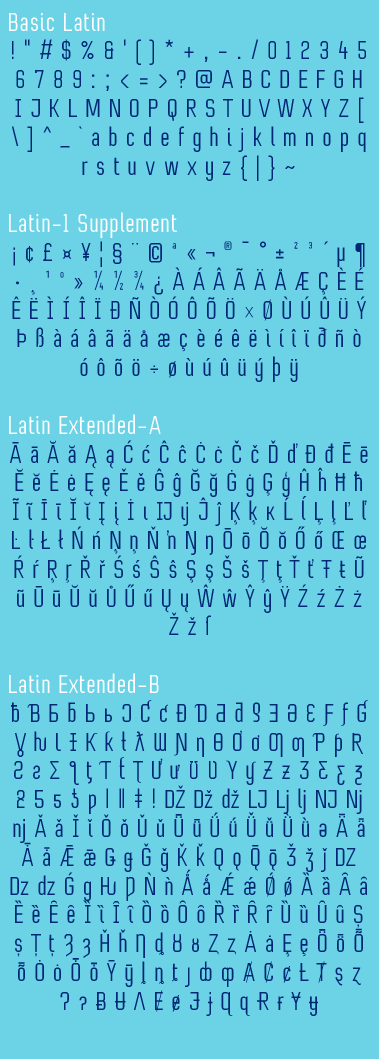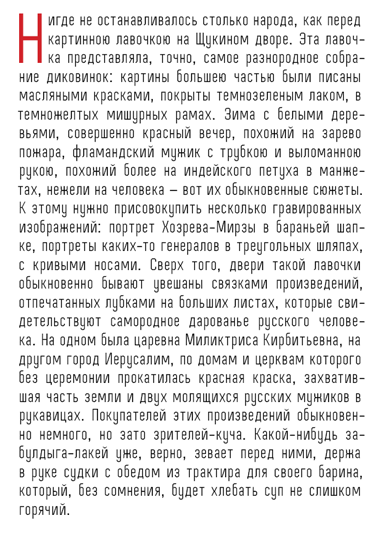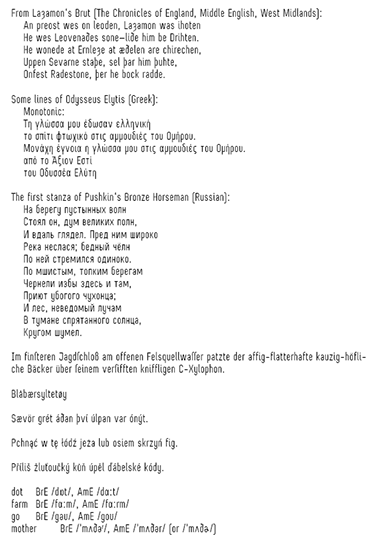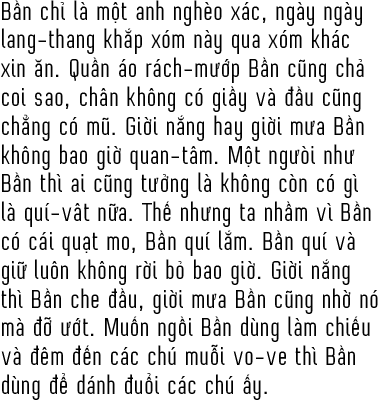
Congratulations! FontStruct Staff have deemed your FontStruction worthy of special mention. “Terminal One” is now a Top Pick.
Felicitation! Très simple et très chic ! Nice font.
Another great and elegant sans! Congrats for the well deserved TP.
Nice and clean typeface. 10/10
Small adjustments here and there...
Also: expanding the unicode support massively.
So clean... and so many characters.... Awesome work!
uh... fix ij please.
Could someone russian speaking tell me whether this is easy to read? Appreciate it!
Yes, it is nice and clear. Given your name, you don't seem like you need a translation, do you Nicolai?
Hardcore reading test.
I keep thinking Laȝamon is something like Lagmonster for some reason. :/
@laynecom & OsyenVyeter: I think first sample is pretty legible too. :)
Added Hebrew support. I hope it's as readable as cyrillic. I'm hoping for feedback on this.
Well done! Can see this as an official font in any word processor!
Does someone here speak Vietnamese? ;-)
I don't but I think differently than @RG2Cents... This is much TOO advanced for the companies. :)
An ambitious and impressive project!
This is amazing, for fontstruct, that is. The only issue I had with this (when I was creating Khnum) is that adding extended character sets can only support so many languages, given that you cannot stack diacritics, nor have anchors for them. @j4s13: it's not that advanced, lol—there are just a lot of languages that utilize the Latin alphabet. Anyway ... bringing African into this is where I quit, because you cannot add the complex tone vowels required for their languages. As to your Vietnamese: I would place the acute/grave/hook to the right of the circumflex. And, though I don't speak much Russian, I can read Cyrillic, and I think that yours looks just fine.
Holy Glyph Count, Batman! How long did it take you to make this masterpiece?